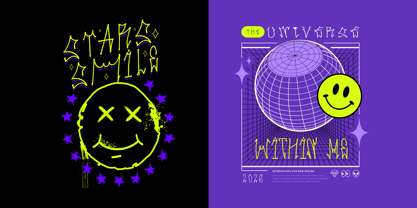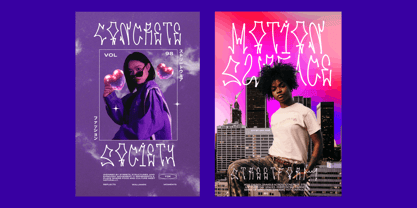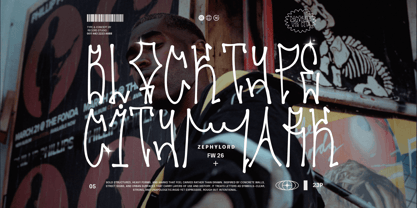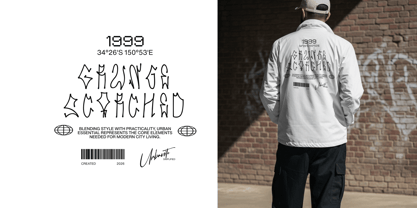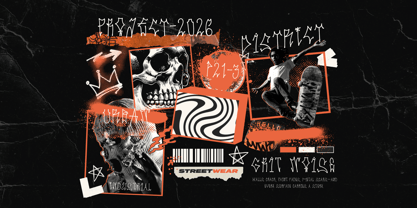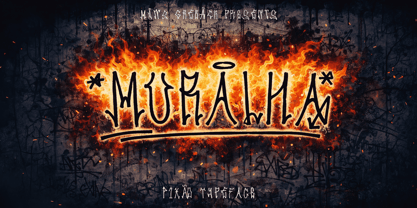
Muralha
La familia tipográfica Muralha fue diseñada por Måns Grebäck y publicada por Mans Greback. Muralha contiene 3 estilos y opciones de paquete familiar. Más información sobre esta familia
Muralha is an expressive graffiti font inspired by hand-drawn tags, scorched surfaces, and walls that carry stories. It has a raw presence, shaped by uneven strokes and intentional imperfections. Created in collab with Clara Vidigal. The tagged forms feel urban and defiant, with a rhythm that suggests movement rather than precision. Its shapes stretch and compress naturally, inspired by Brazilian pixão street art. Decorative marks and subtle irregularities add true gritty character. Muralha was drawn to capture the feeling of large-scale lettering done with speed and confidence. It is not polished or restrained, but honest in its roughness, echoing marks made on concrete, metal, or brick. The font is built with advanced functionality and guaranteed top-notch quality, containing stylistic and contextual alternates, ligatures and more automatic and manual features; all to give you full control and customizability. It has extensive lingual support, covering all Latin-based languages, from North Europa to South Africa, from America to South-East Asia. It contains all characters and symbols you'll ever need, including all punctuation and numbers.